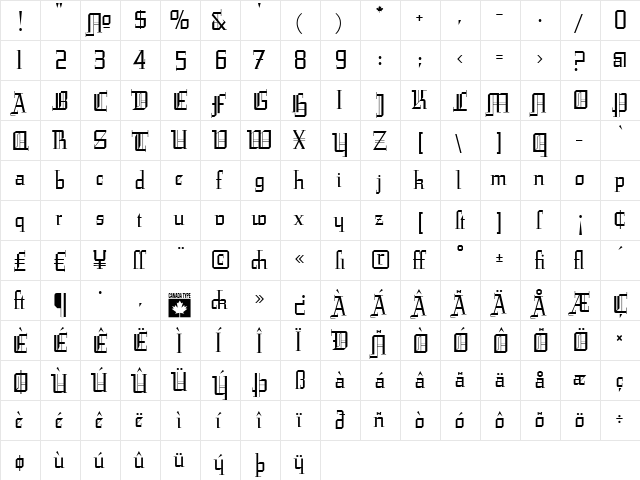
Leather Light Regular
Design Context for Leather Light Typeface
Leather Light is a composed and adaptable typeface that performs quietly and consistently across a wide range of design contexts. Its slender proportions lend an understated elegance to any composition.